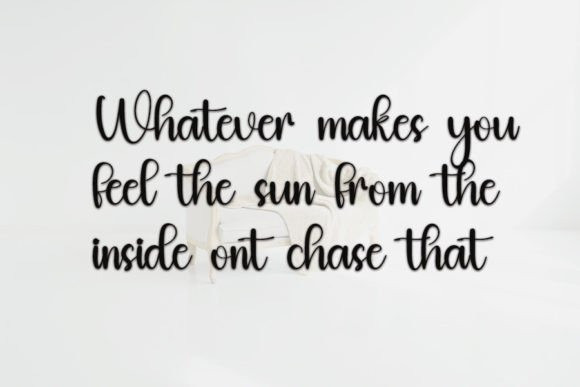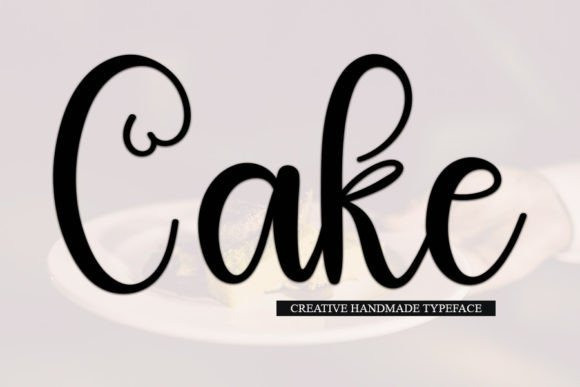
Cake Font
Cake Font is a wonderful handmade script font with lovely details. It’s perfectly suitable for wedding invitations, branding, cards, magazines, quotes, banners, and more. Add this beautiful display font to each of your creative ideas, and notice how it makes them stand out!